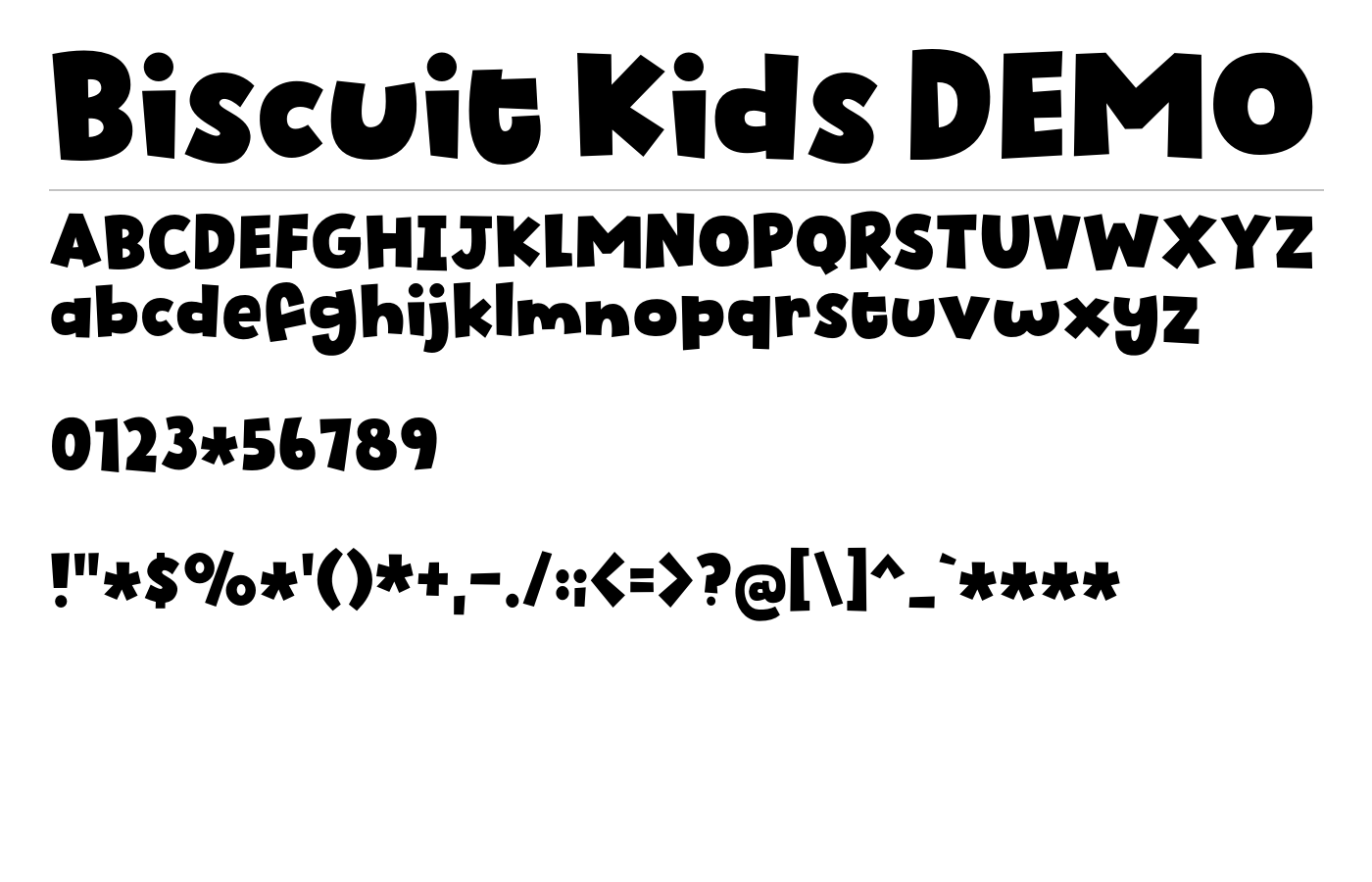
Biscuit Kids DEMO is a bold, playful sans serif font with chunky, irregular letterforms that give it an energetic and friendly vibe. Its casual, hand-drawn style and high x-height make it ideal for kids’ products, informal branding, and fun headlines where a lively, approachable look is desired. This font works best in creative, child-centered contexts thanks to its easy readability and cheerful personality.
Biscuit Kids DEMO Font
About Biscuit Kids DEMO Font
| Font family | Biscuit Kids DEMO Font |
| Designer | Jakob Fischer / pizzadude.dk |